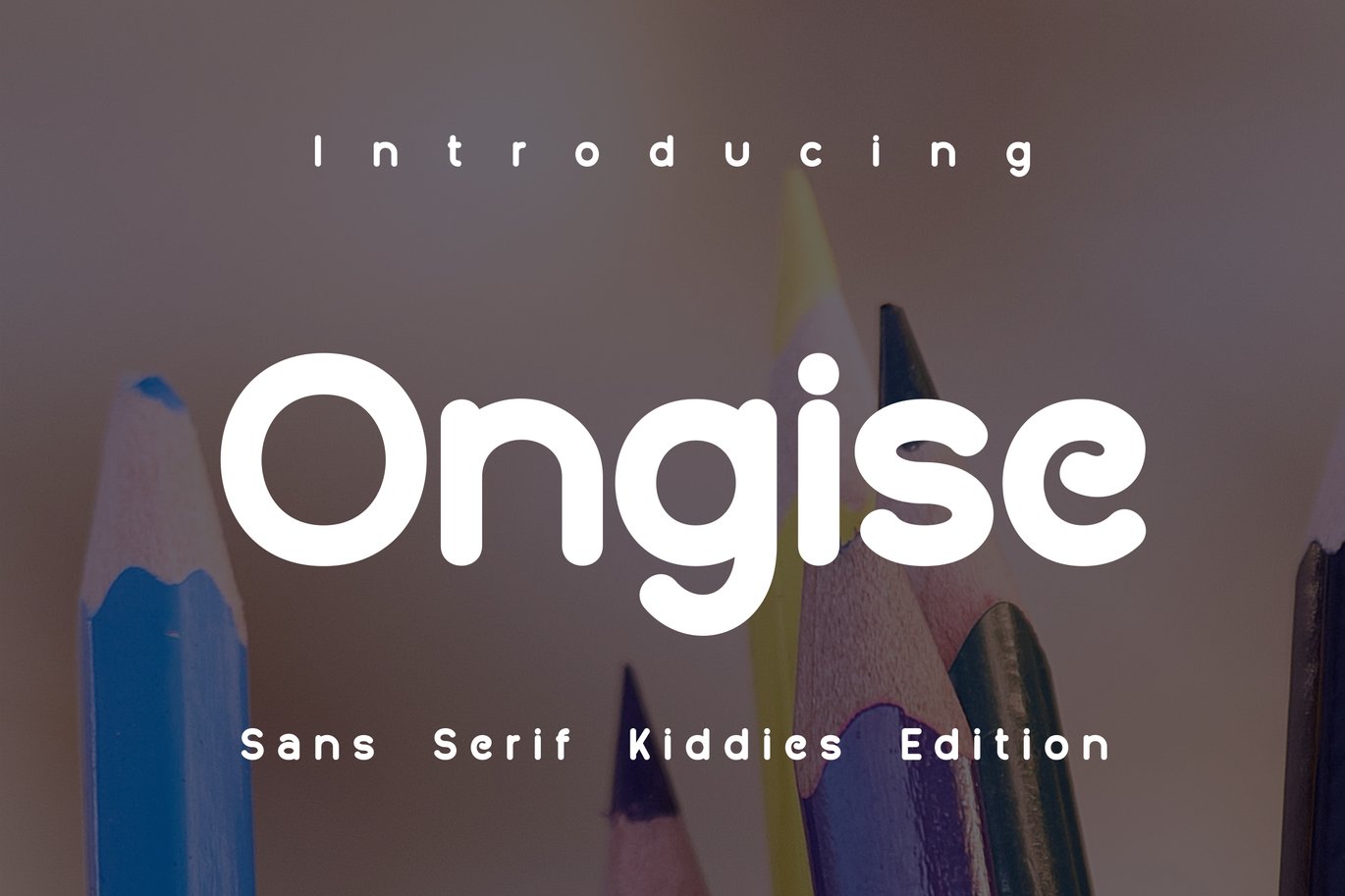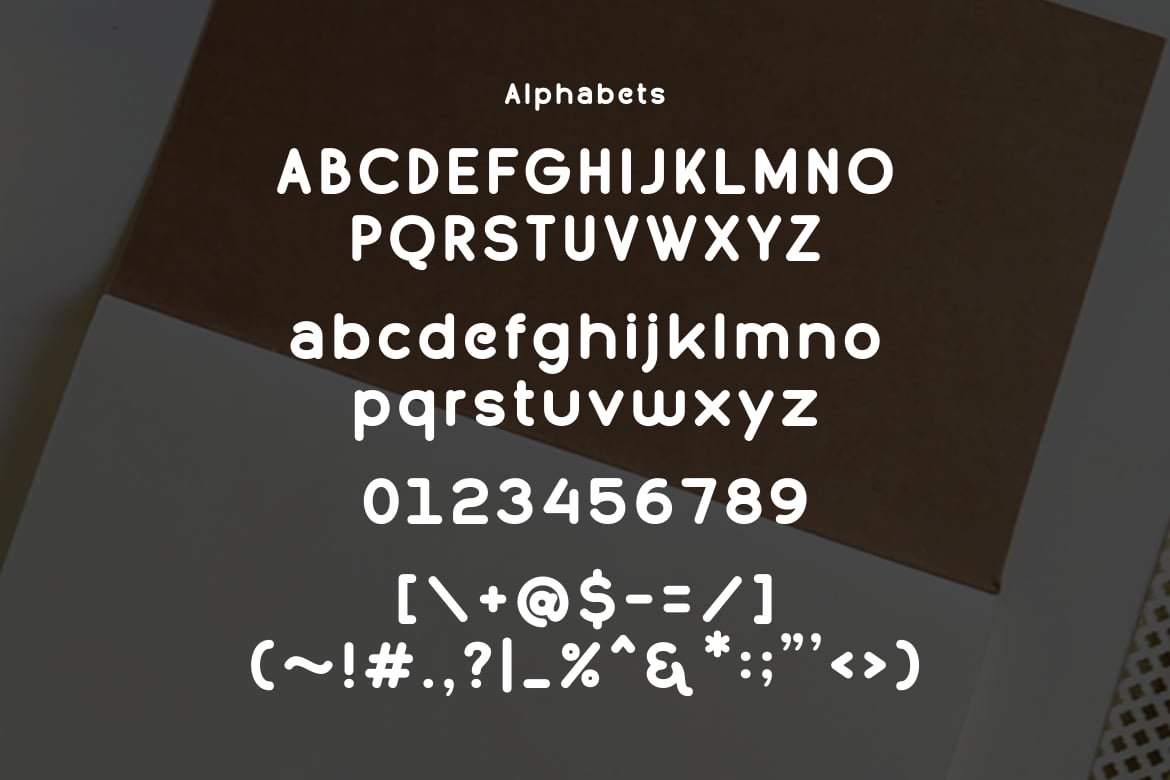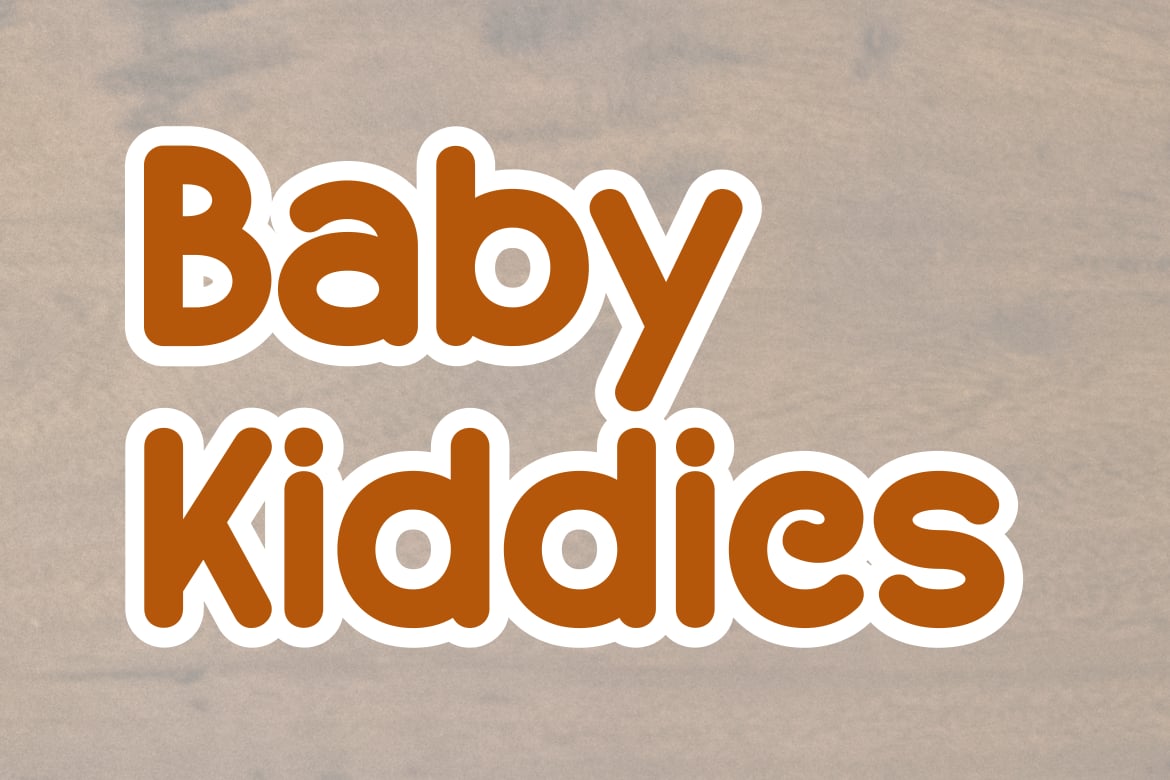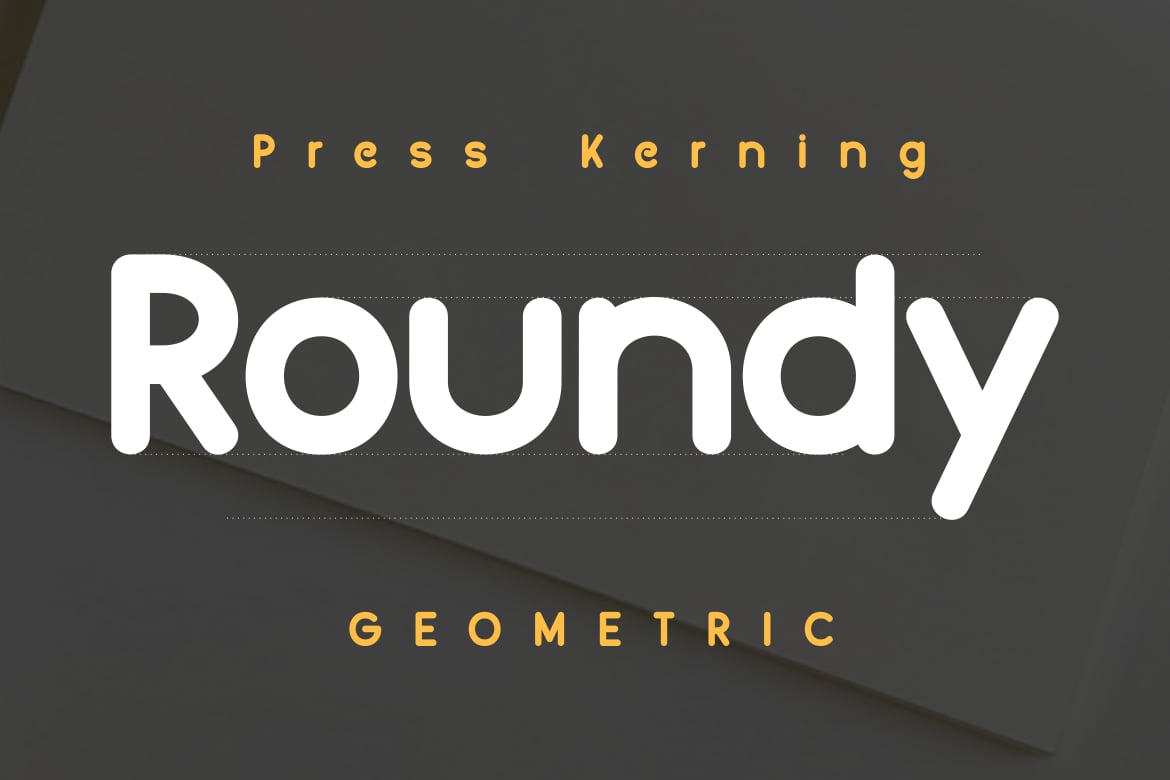
Ongise Monde Font
The sans font is made thicker complete with its alphabet character, making it easier to write in products related to geometric shapes and children’s characters.
It is easier to read and clear in children’s imagination, making it easier for them to understand. thanks.